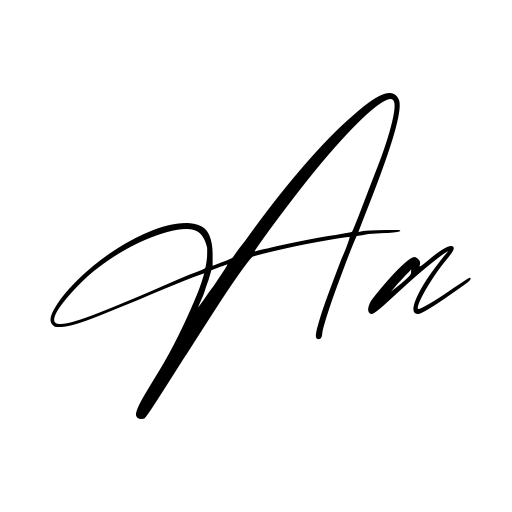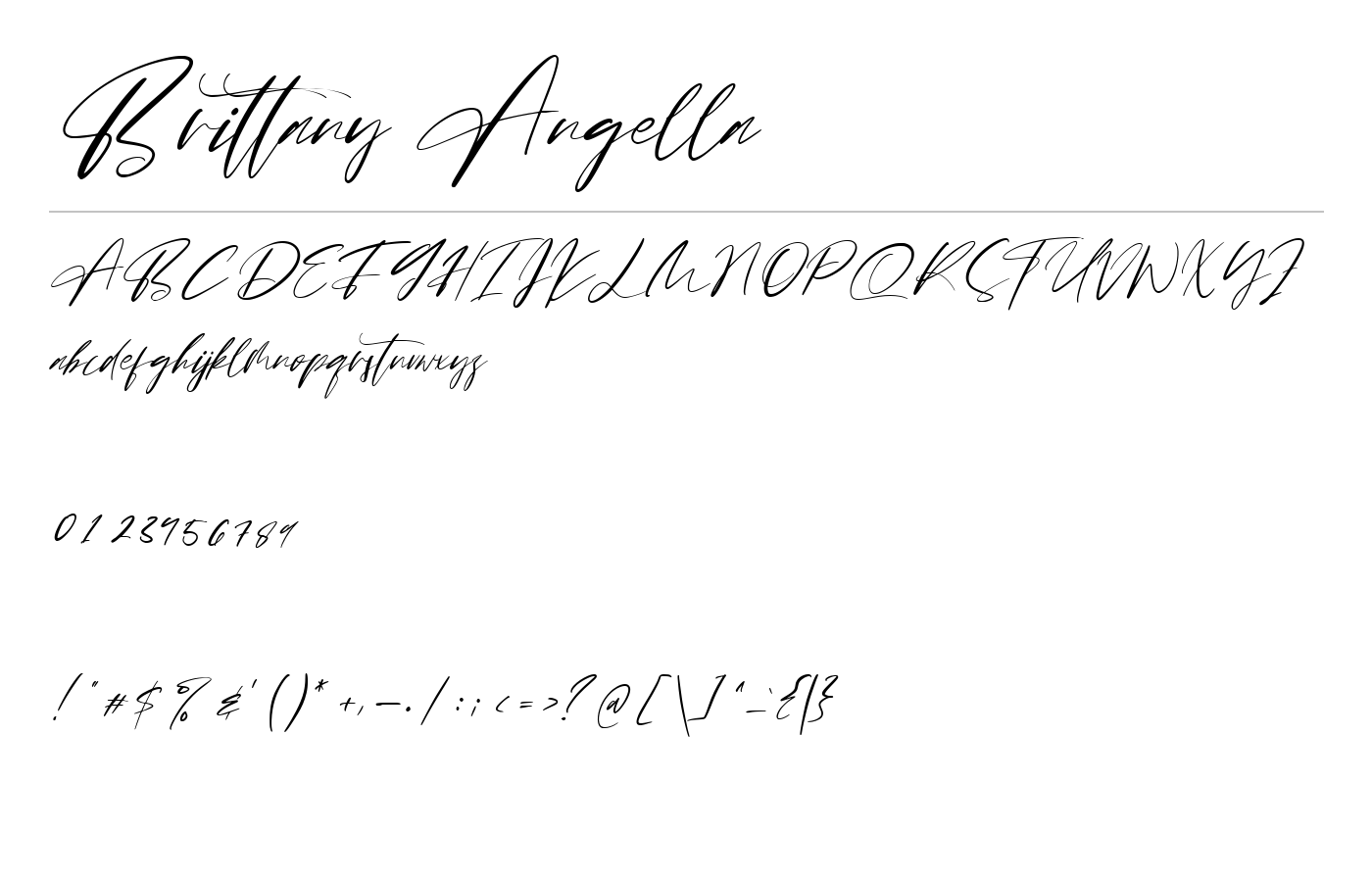
Brittany Angella is an elegant script font with delicate, flowing strokes and a graceful, handwritten feel. Its thin, fluid lines and high contrast create a sophisticated and airy appearance ideal for invitations, branding, and design projects that seek a touch of refined femininity and charm. This font works best in headlines, logos, or decorative text where its stylish personality can truly shine.
Brittany Angella Font
About Brittany Angella Font
| Font family | Brittany Angella Font |
| Designer | StringLabs |